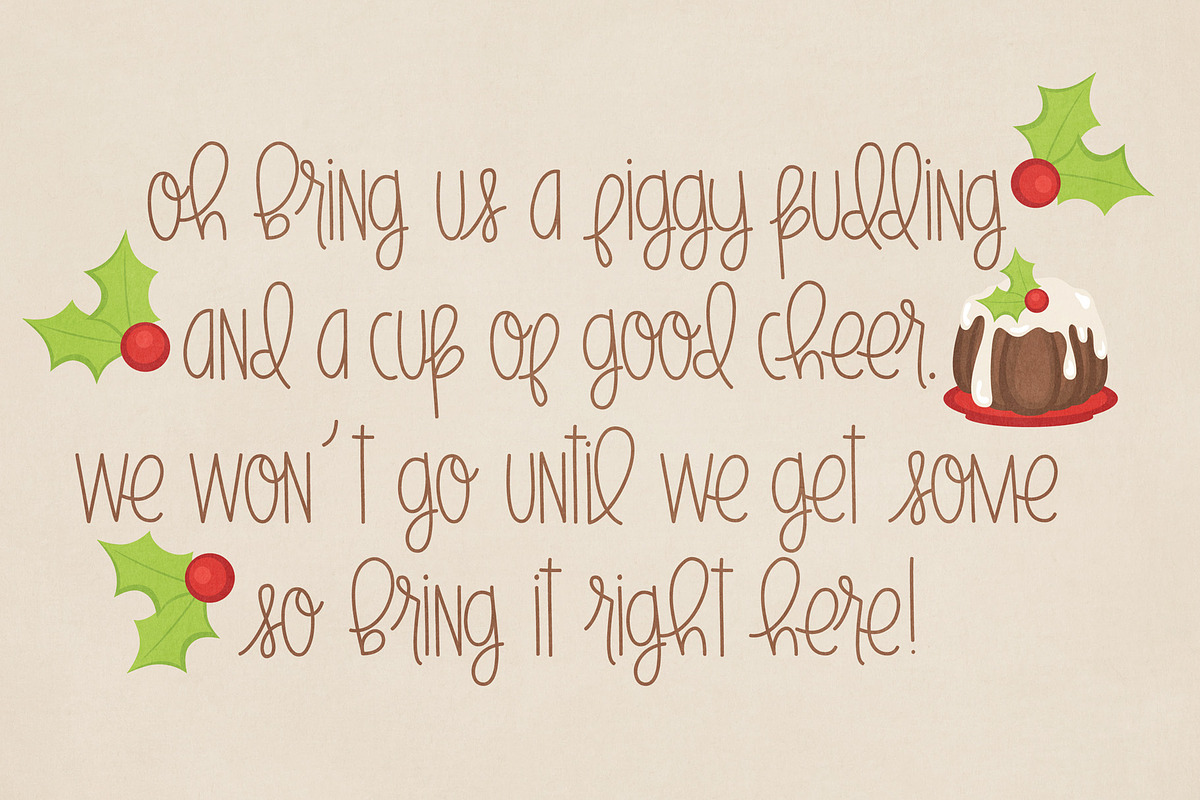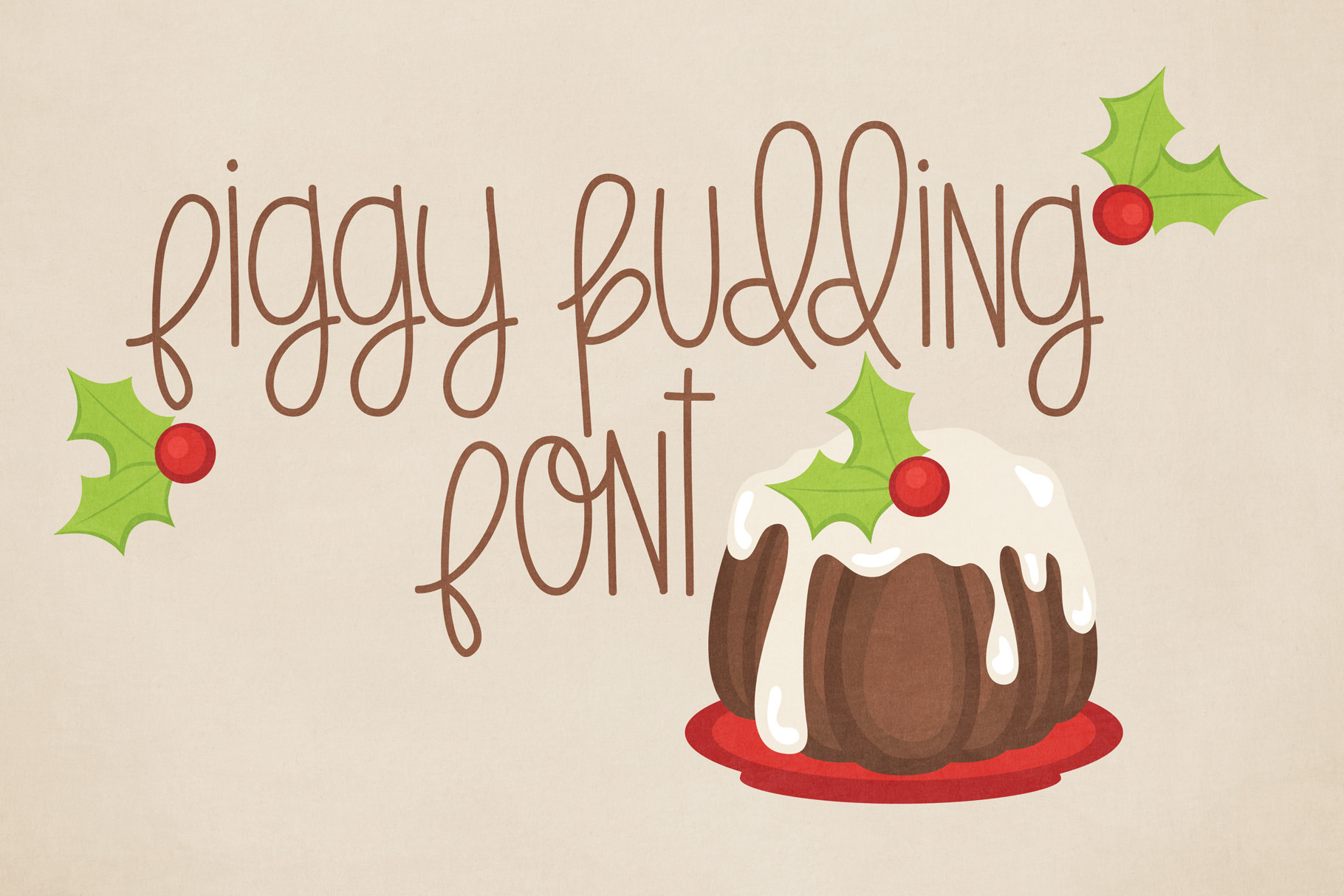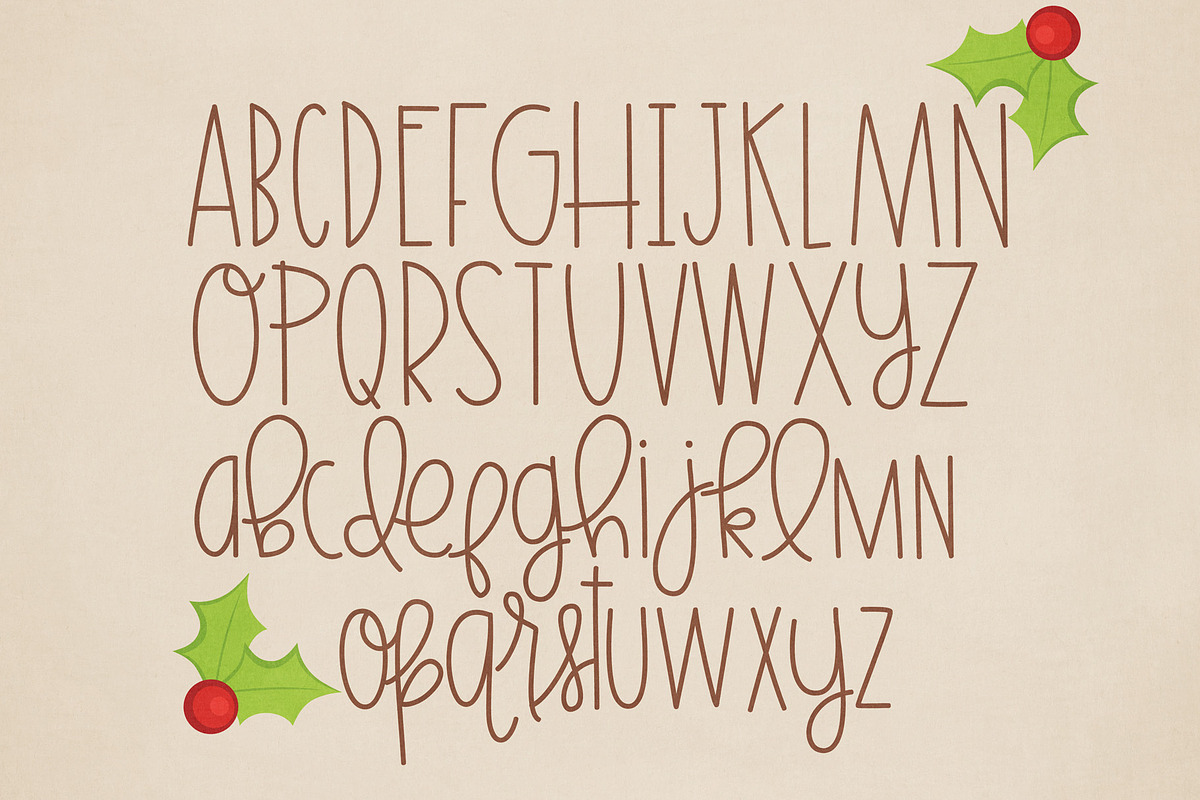
Figgy Pudding Font
Introducing a cute handwritten font Figgy Pudding!
Perfect for greeting cards, branding, stationery, social media, scrapbooking, prints and more!